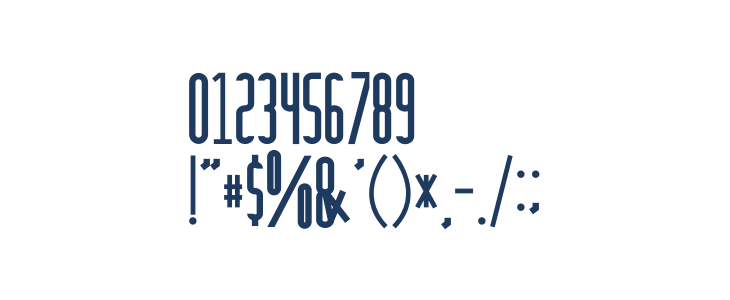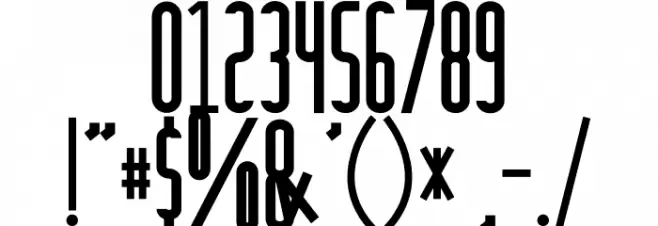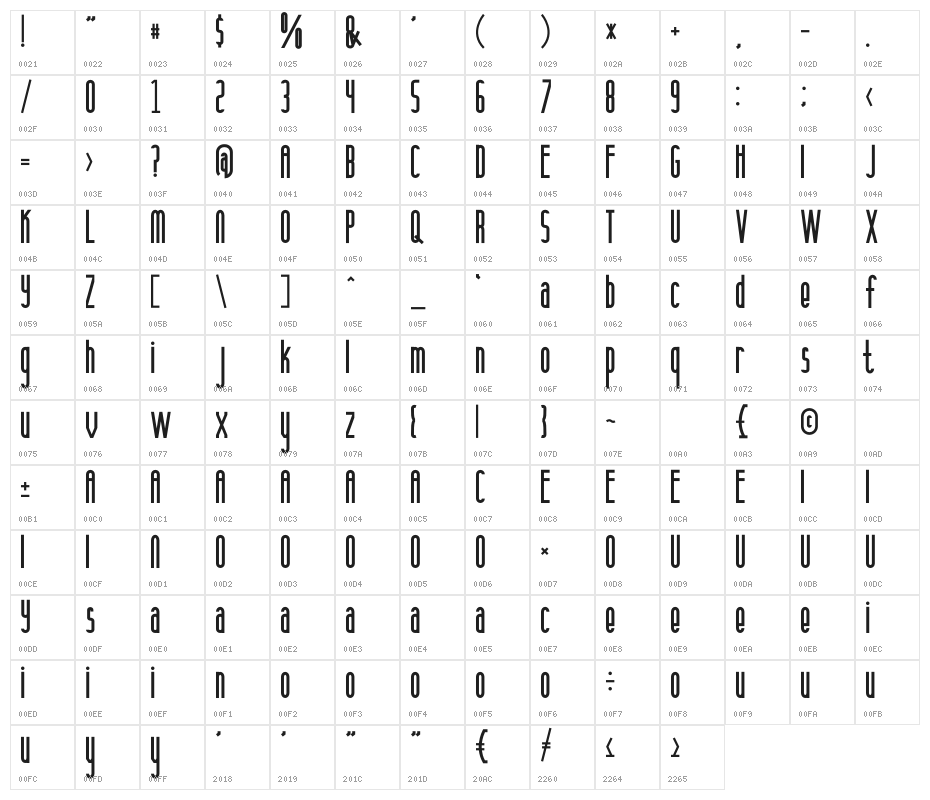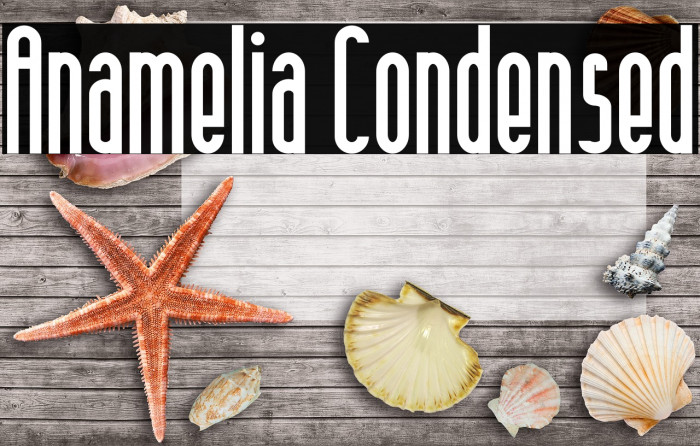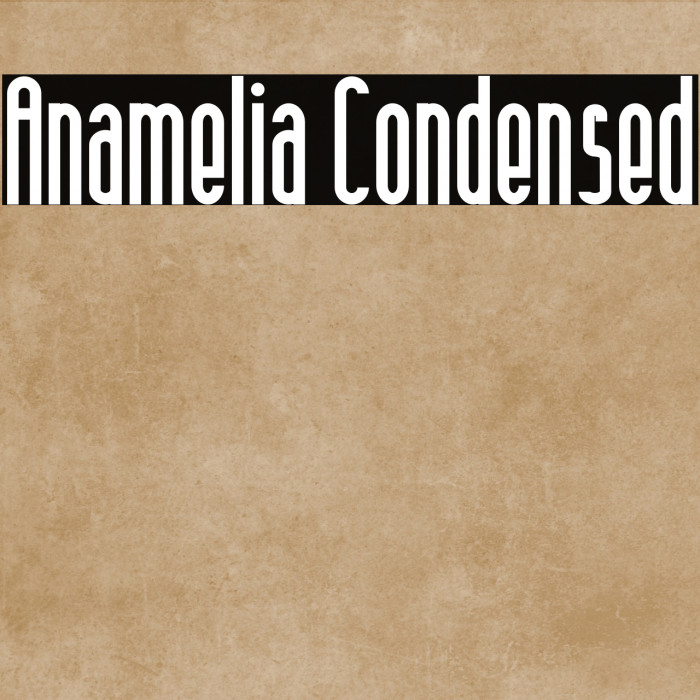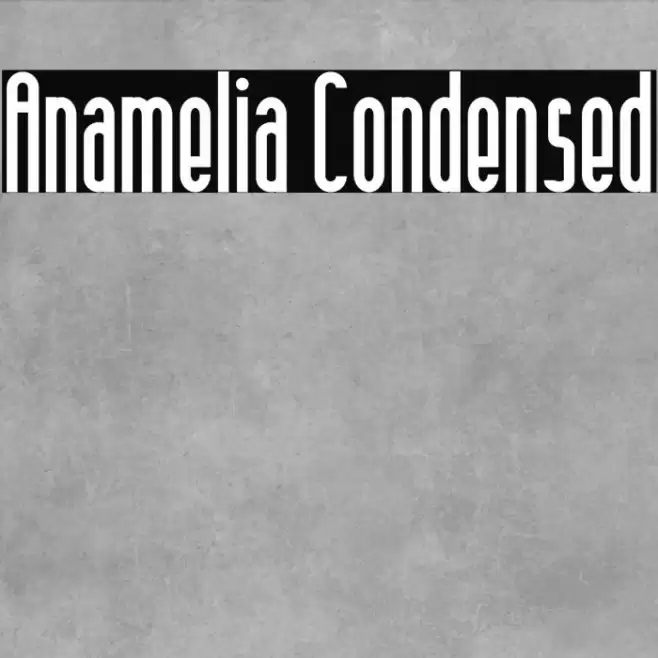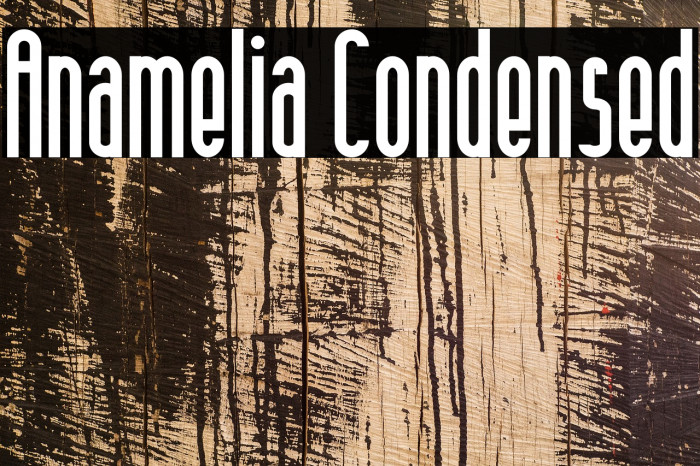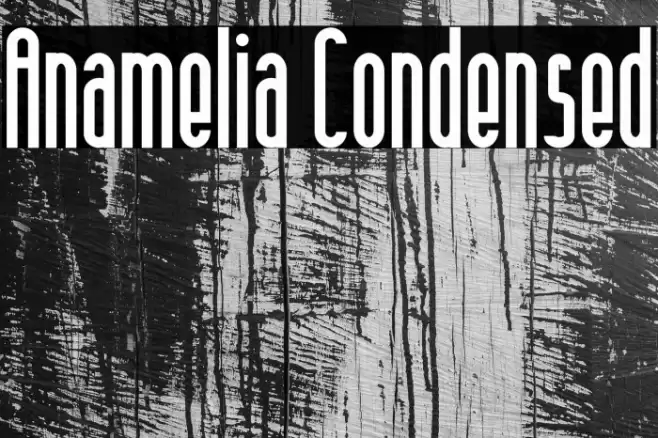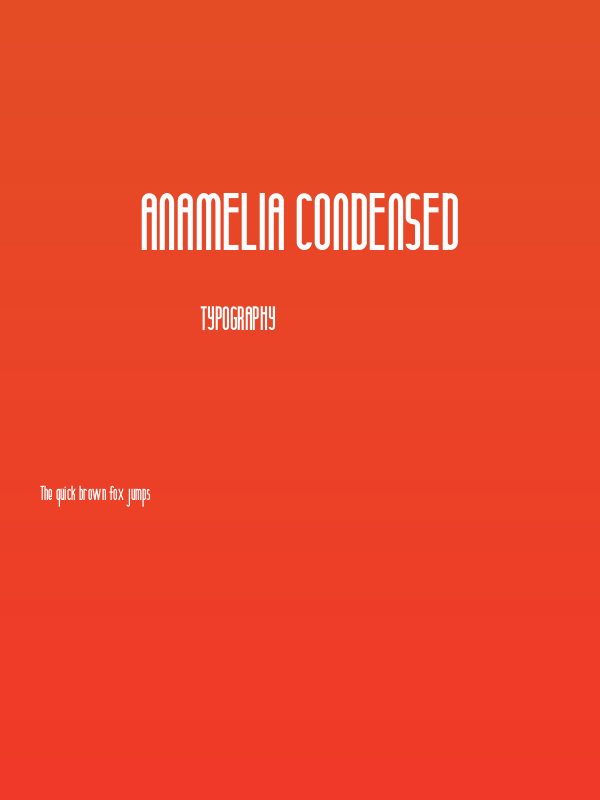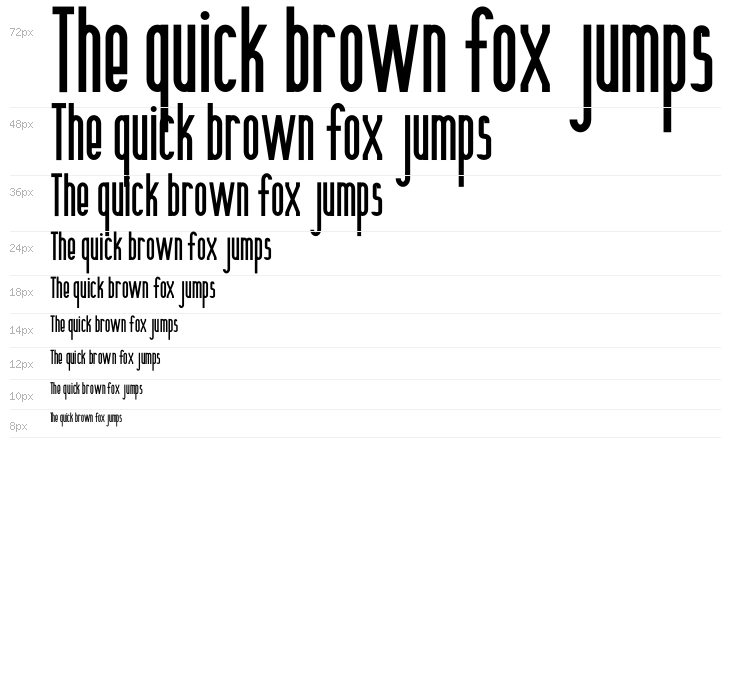
Anamelia Condensed Font
Anamelia Condensed Description
This font features a tall and narrow design, emphasizing verticality with its condensed letterforms. The characters are sleek and modern, with a uniform stroke width that gives it a clean and minimalist appearance. The uppercase letters are particularly elongated, creating a striking visual impact. The lowercase letters maintain the same narrow proportions, ensuring consistency across the typeface. The numerals are similarly styled, fitting seamlessly with the overall aesthetic. Special characters are included, maintaining the same condensed style, making this font versatile for various uses.
Proposed ProjectsIdeal for modern branding, posters, headlines, and any design requiring a sleek, space-efficient typeface.